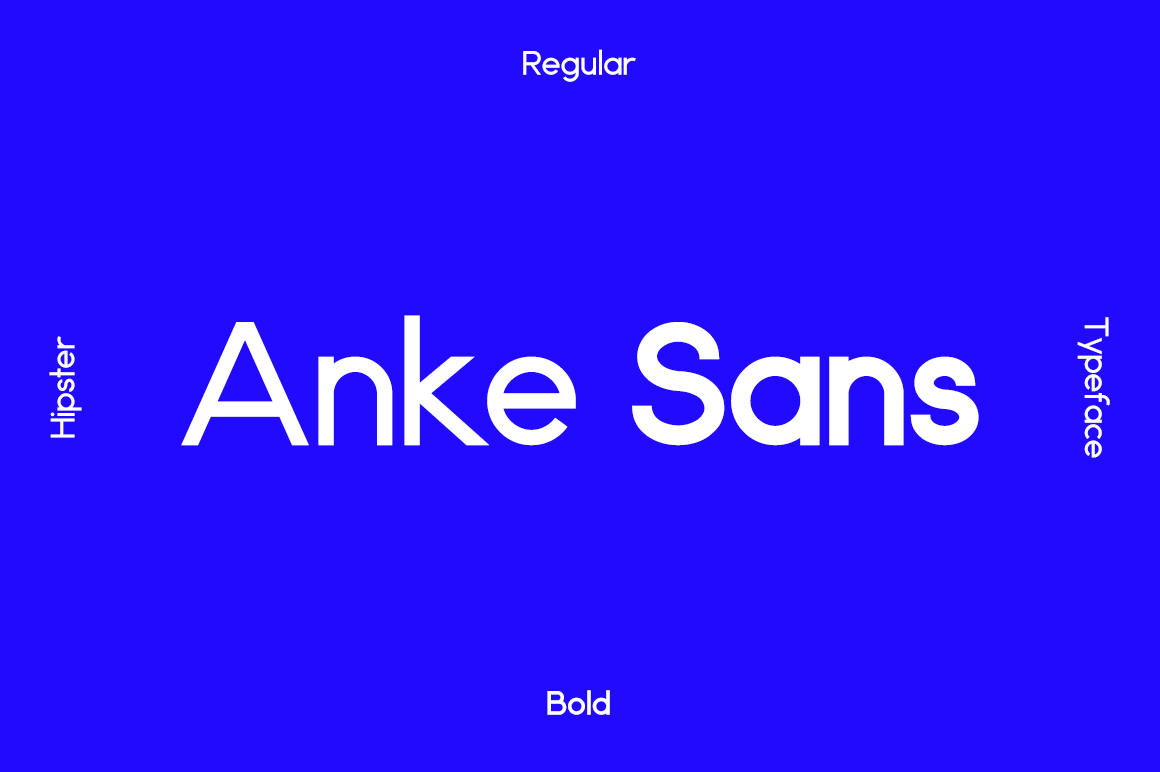
The Ultimate Guide to Anke Sans Font: A Designer’s New Best Friend
I’ll never forget the time I was working on a project for a client who needed a modern, sleek font to represent their brand. I spent hours scouring the internet for the perfect typeface, but nothing seemed quite right. That was until I stumbled upon Anke Sans Font. This geometric, simple yet legible Sans Serif font has been a game-changer for me, and I’m excited to share its awesomeness with you! 😊
An Honest Review of Anke Sans Font
• ✨ Clean and Simple Design: Anke Sans Font boasts a clean and simple design that makes it perfect for a wide range of applications, from posters and logos to letterheads and more!
• ✅ High Legibility: The font’s geometric shape and careful attention to detail ensure that it’s highly legible, even at small sizes.
• 🌎 Diacritic Characters: Anke Sans Font includes uppercase, lowercase, and diacritic characters, making it a great choice for international projects.
While Anke Sans Font is an excellent choice, there are a few things to keep in mind:
• 🤔 Limited Stylistic Options: As a simple Sans Serif font, Anke doesn’t offer a wide range of stylistic options or alternates. However, its clean design makes up for this.
• ⚠️ Not Suitable for Body Text: While Anke is highly legible, its geometric design can make it a bit too bold for long blocks of body text. Consider using a serif font for these applications.
The Backstory of Anke Sans Font
Anke Sans Font was designed with the goal of creating a clean, simple, and highly legible typeface that’s perfect for a wide range of applications. While the designer’s inspiration is not well-documented, it’s clear that their attention to detail and commitment to typographic excellence have resulted in a truly exceptional font.
Font Name Anke Sans Font
Author Noe Araujo
Q: What is Anke Sans Font?
Anke Sans Font is a geometric, simple yet legible Sans Serif typeface that’s perfect for posters, logos, letterheads, and more.
Q: What languages does Anke Sans Font support?
Anke Sans Font includes uppercase, lowercase, and diacritic characters, making it suitable for a wide range of languages.
Q: Is Anke Sans Font suitable for body text?
While Anke Sans Font is highly legible, its geometric design can make it a bit too bold for long blocks of body text. Consider using a serif font for these applications.